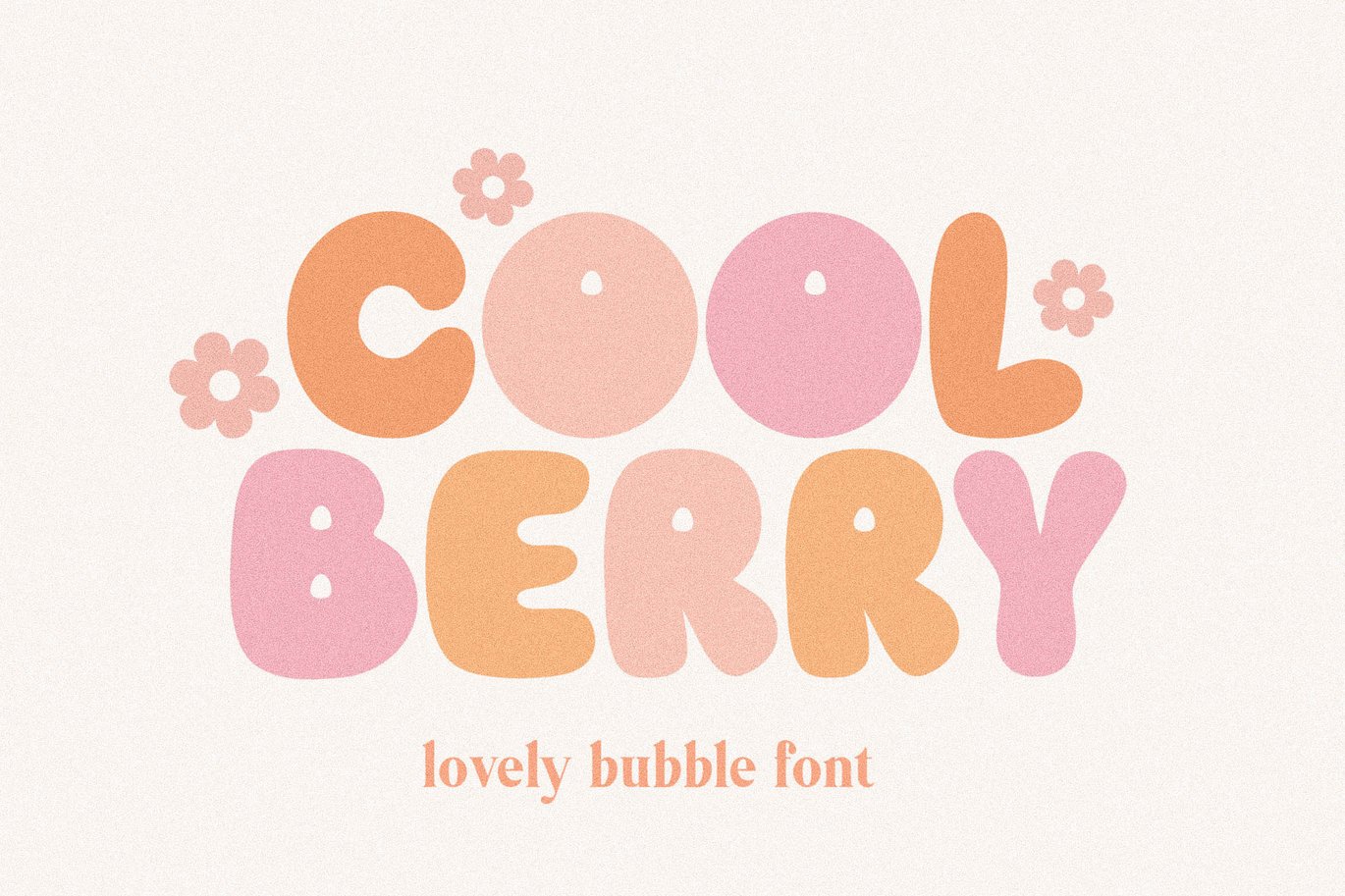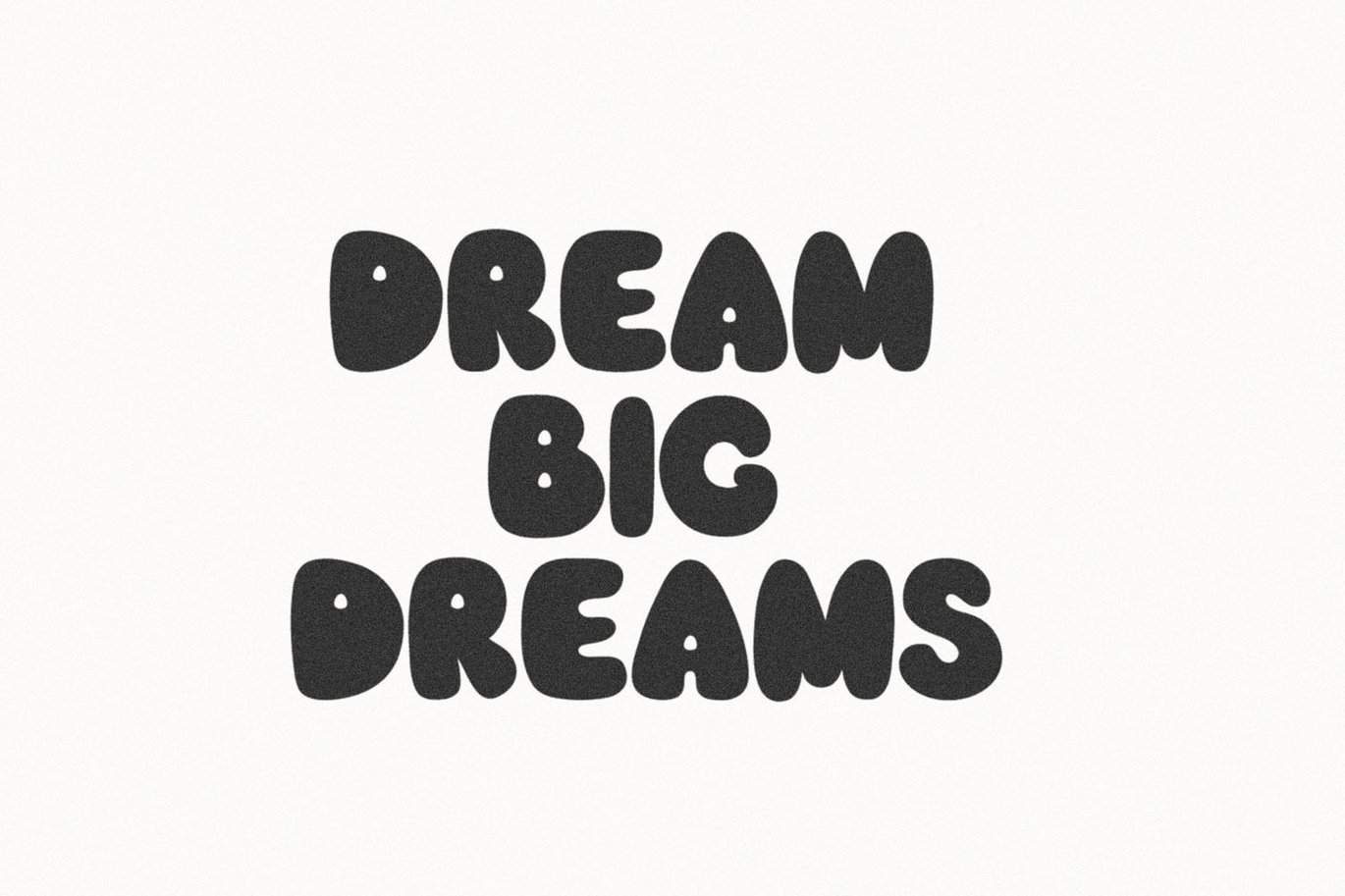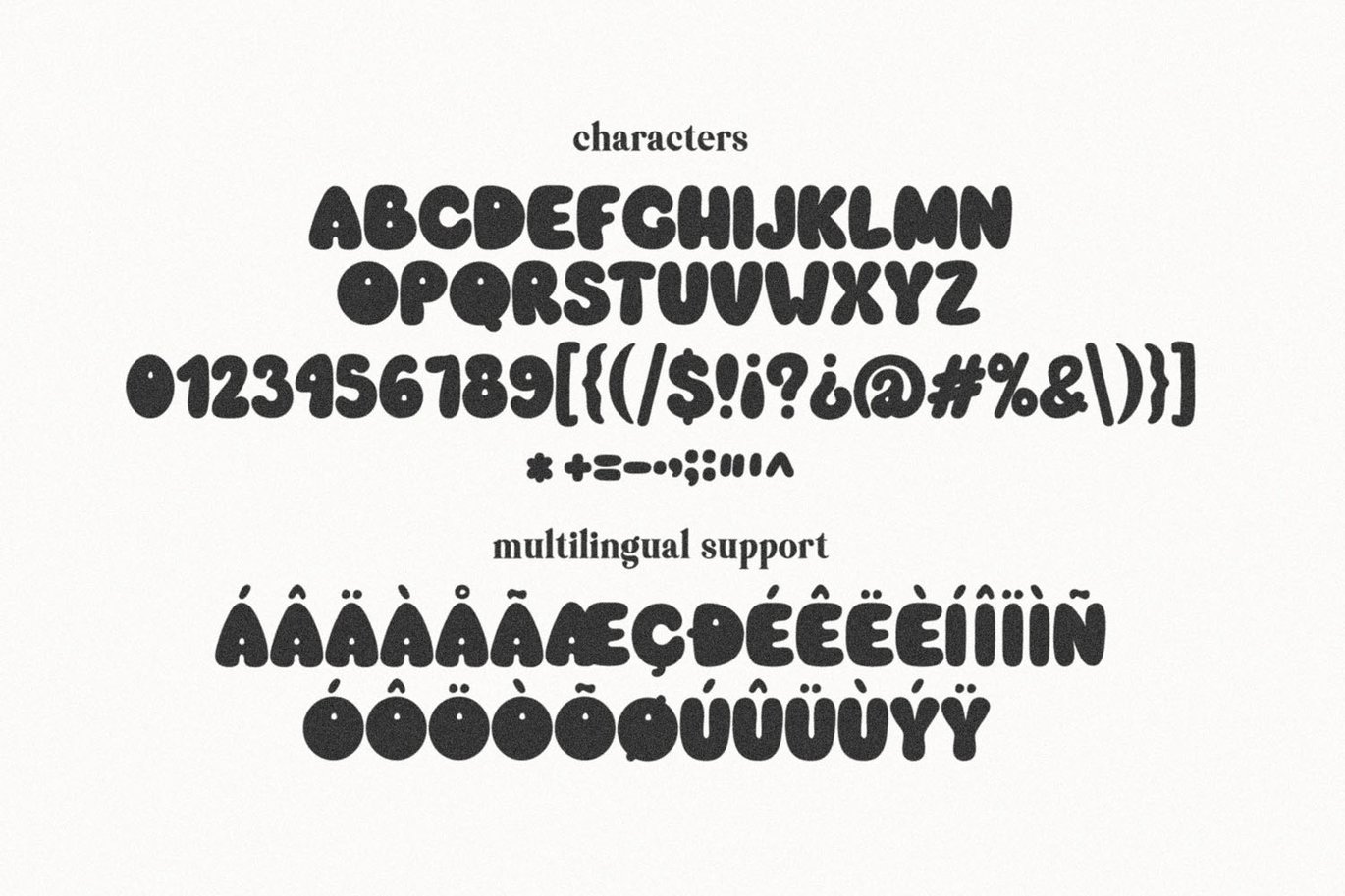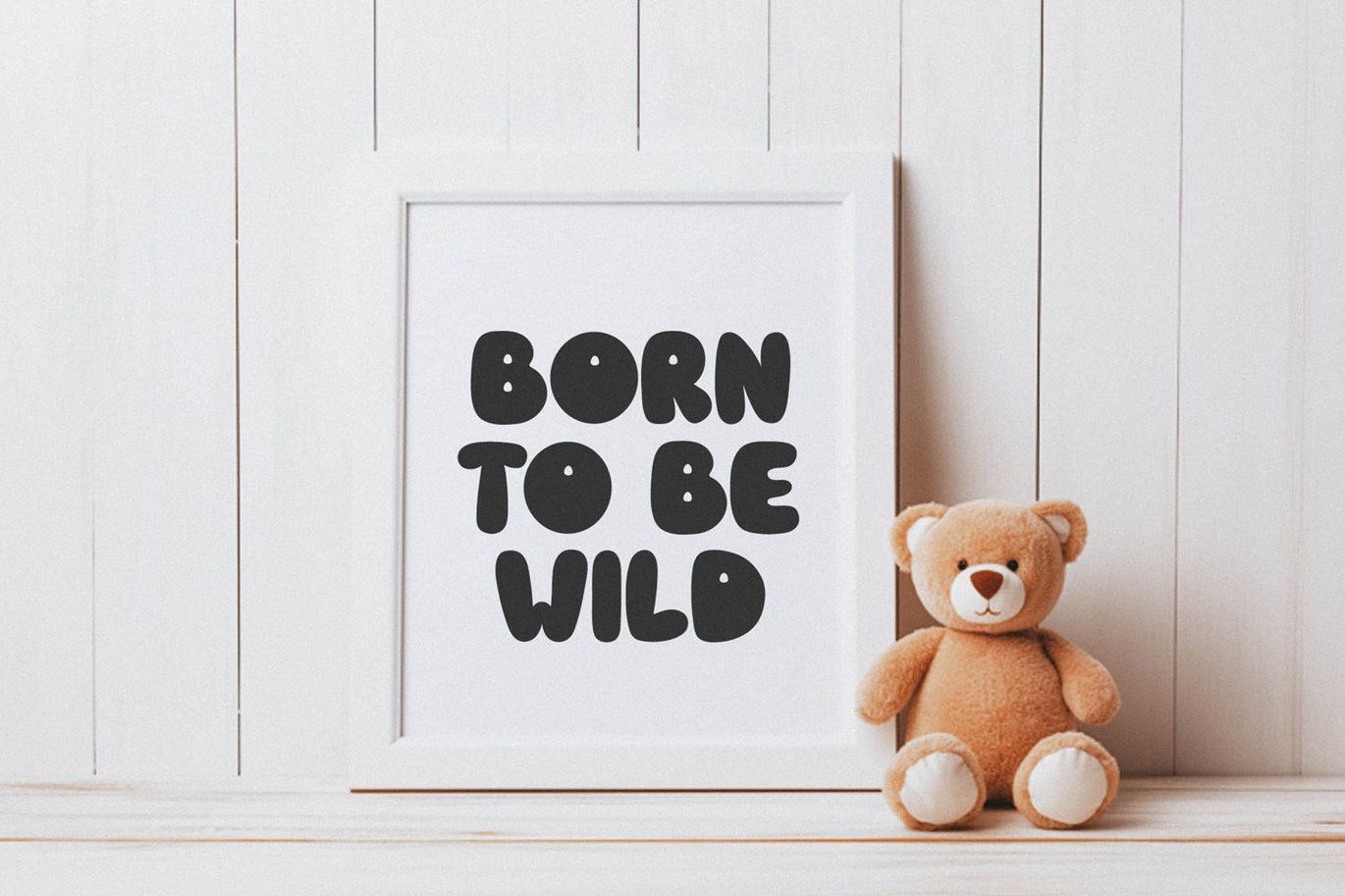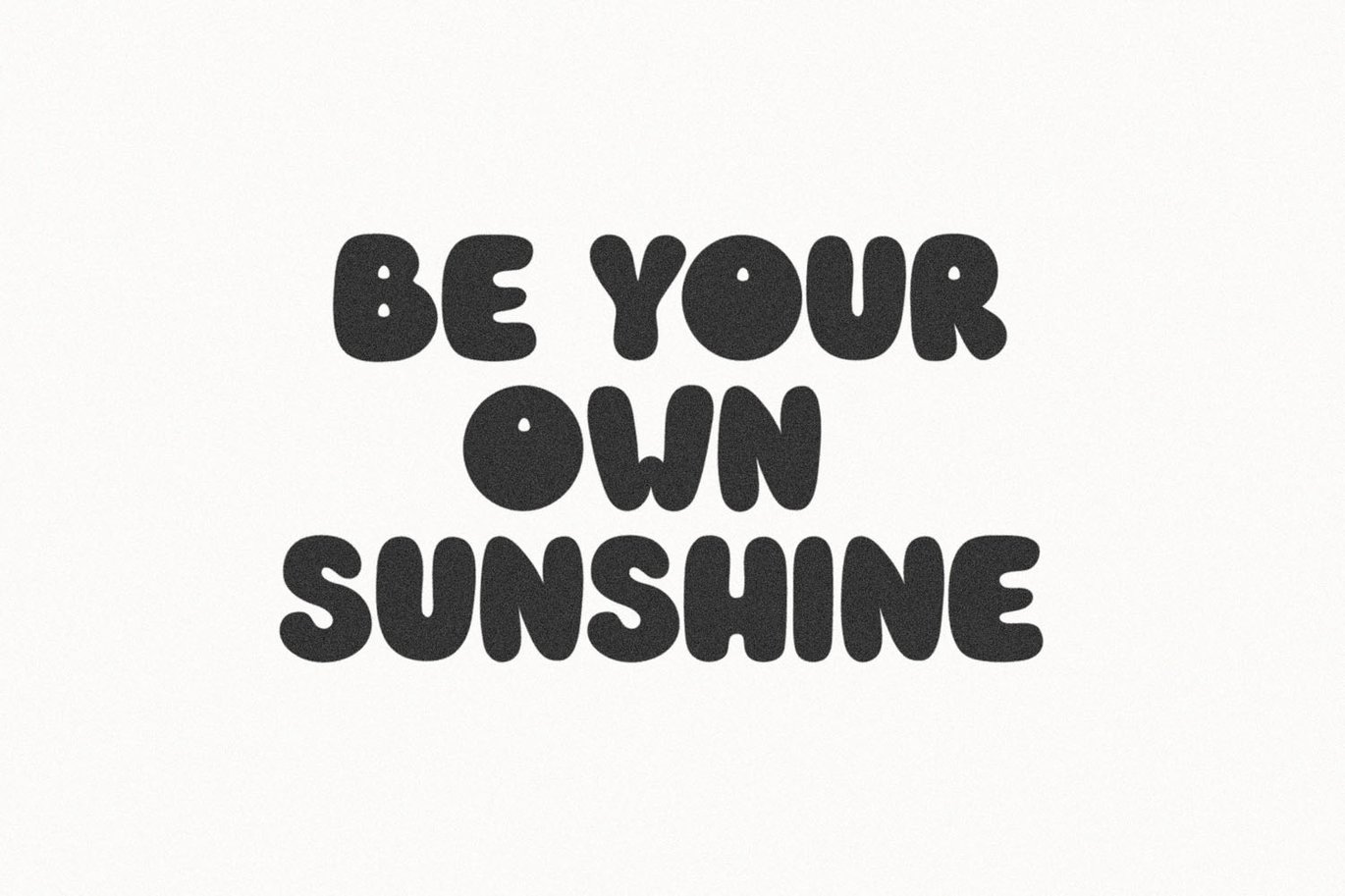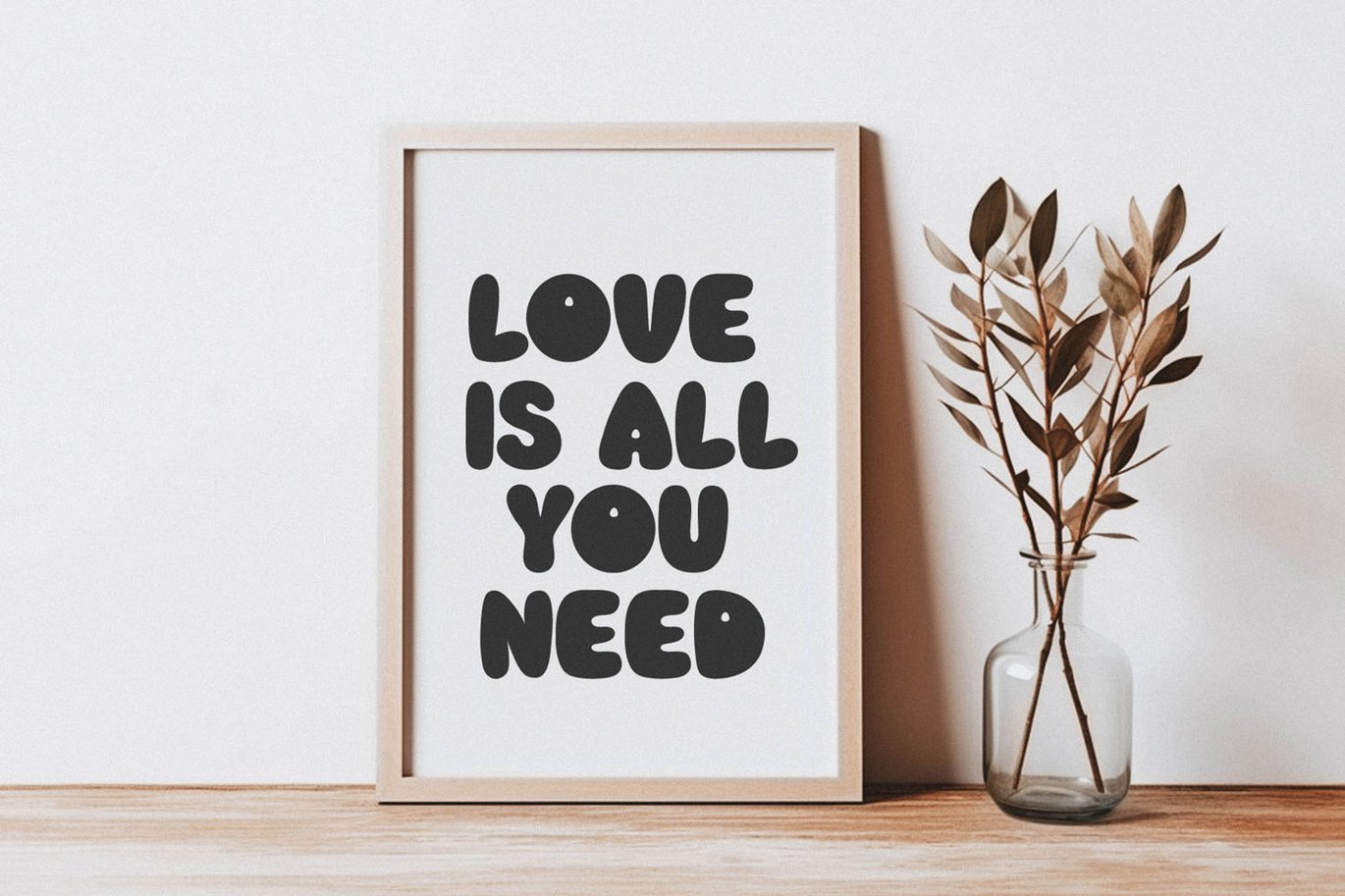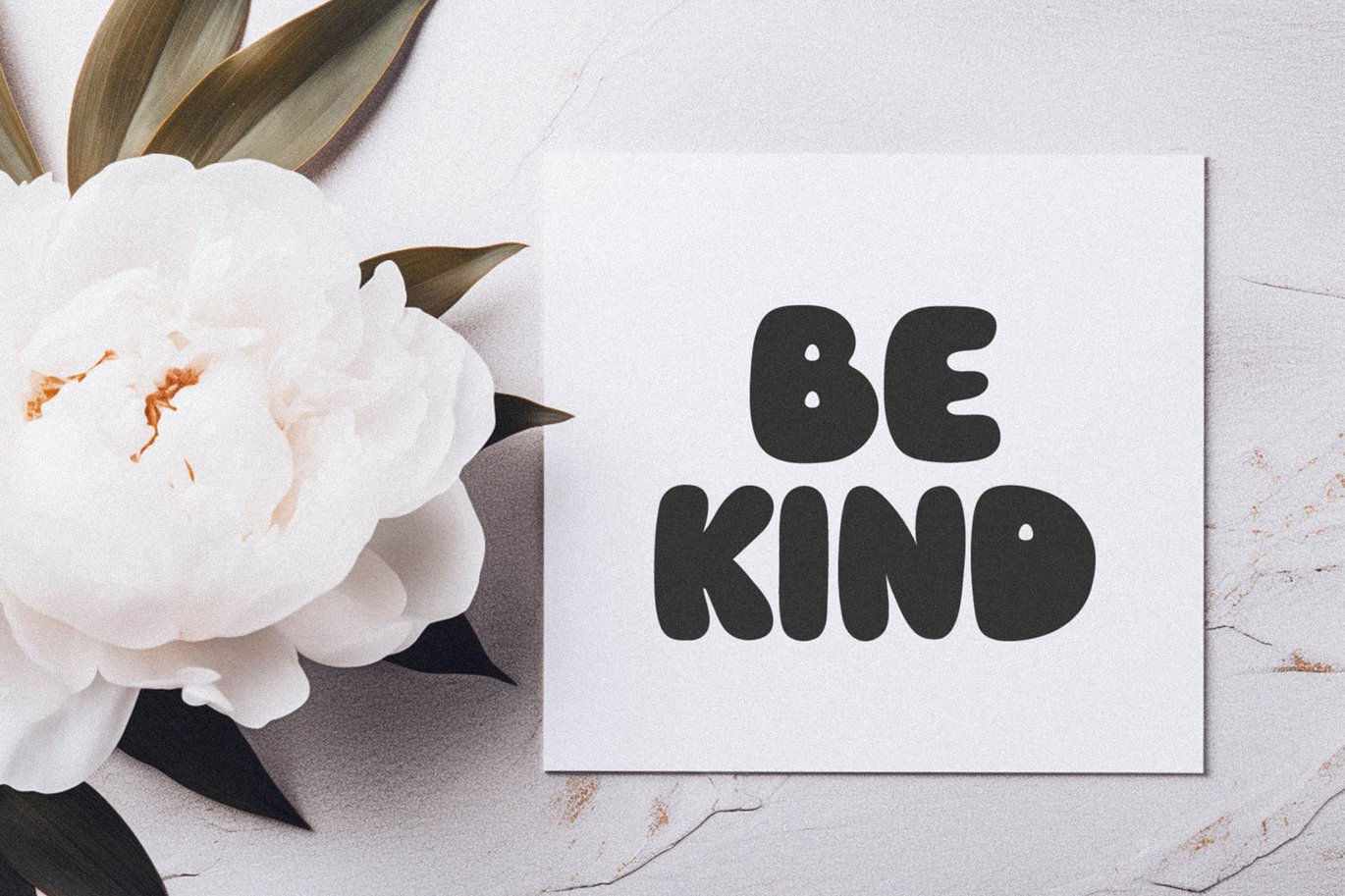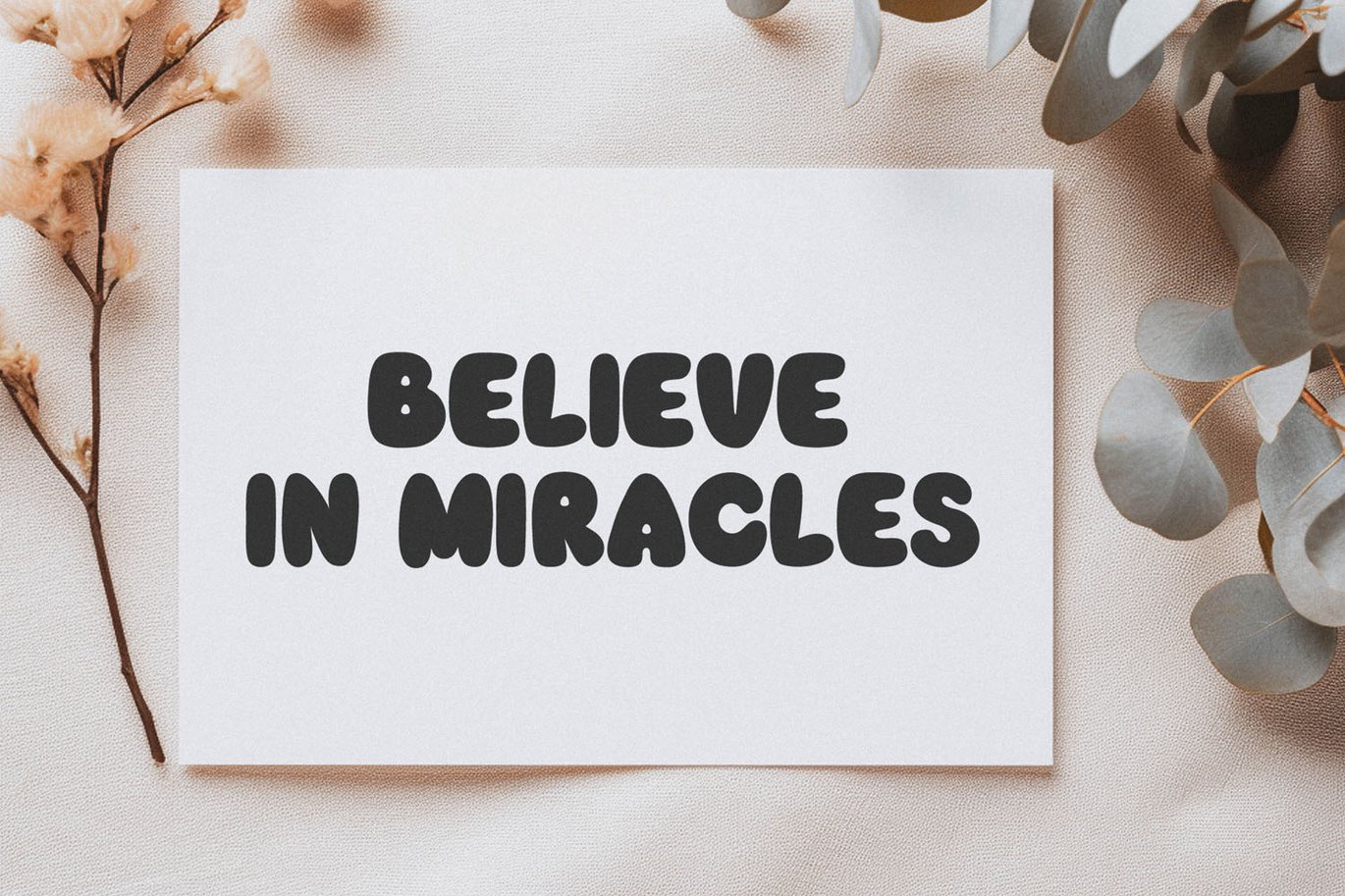
Cool Berry Bubble Font
Cool Berry a bubble handwritten font. Perfect to create stickers, quotes, prints, cricut projects, sublimation designs and svg files.